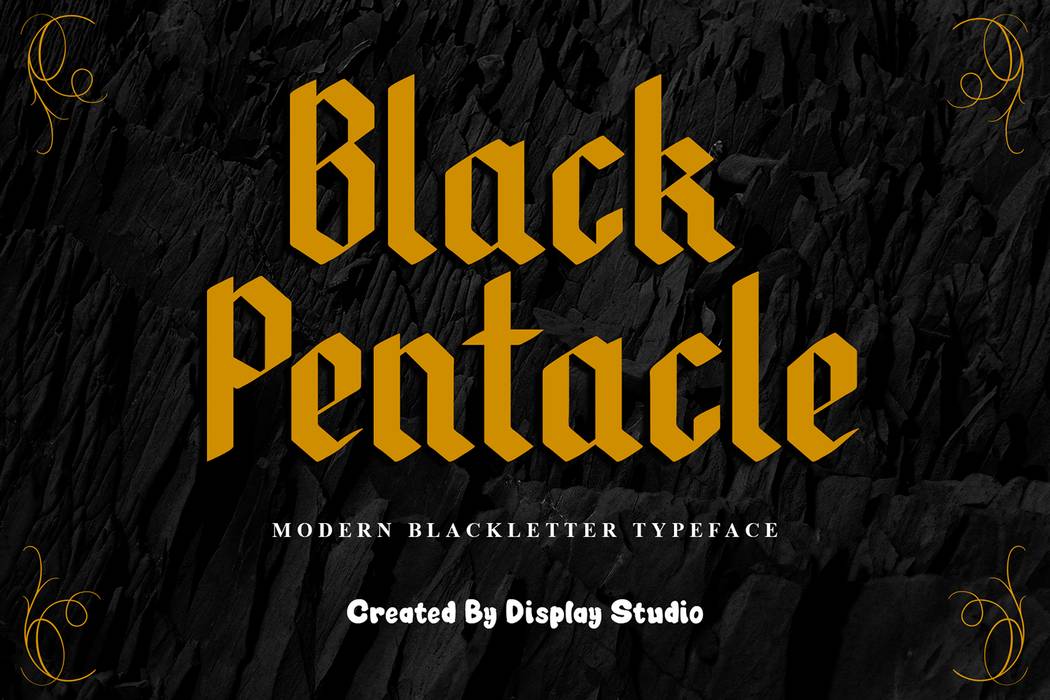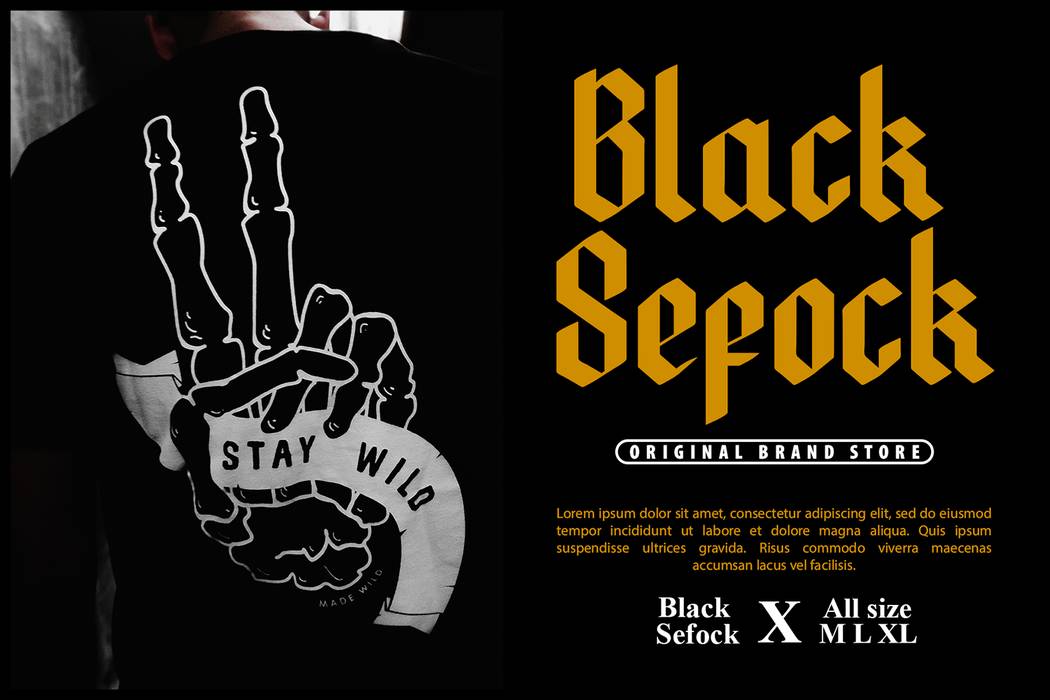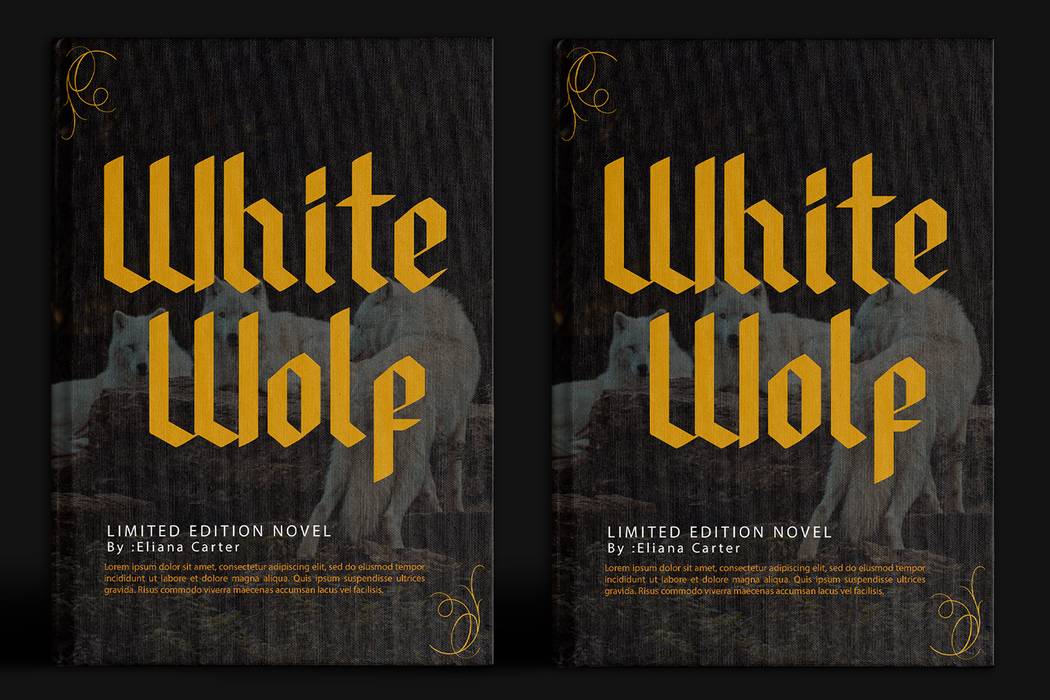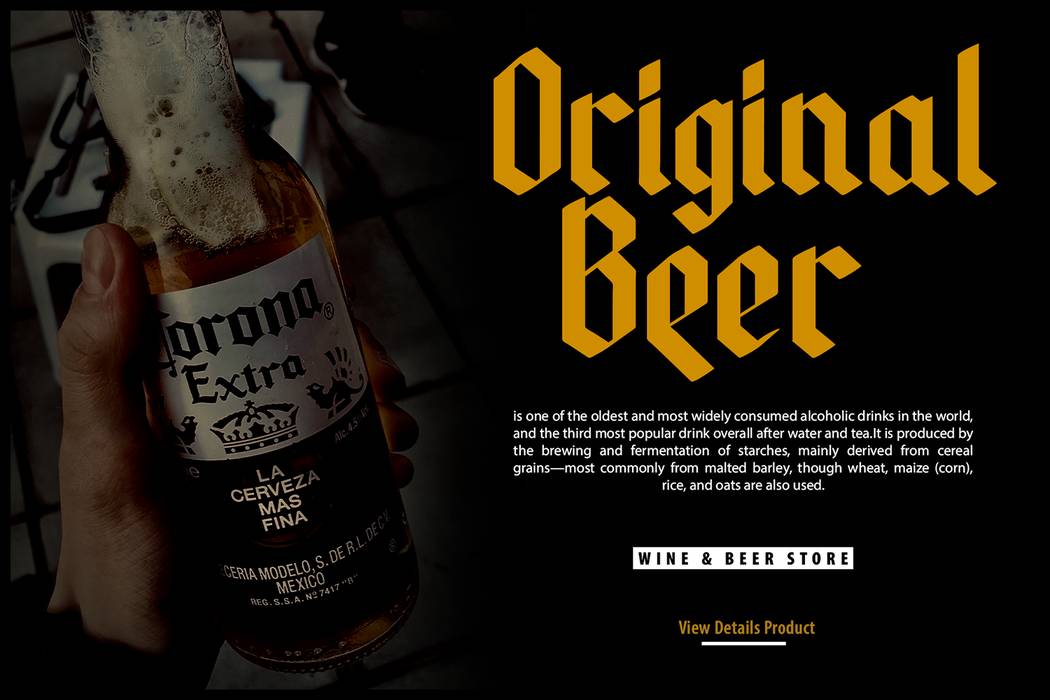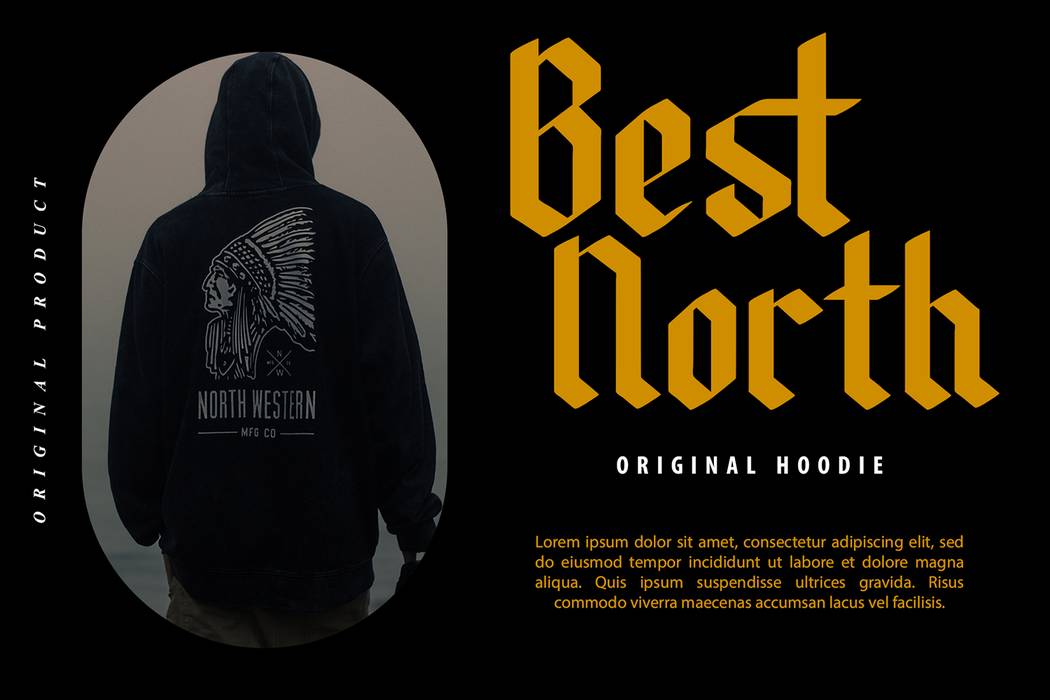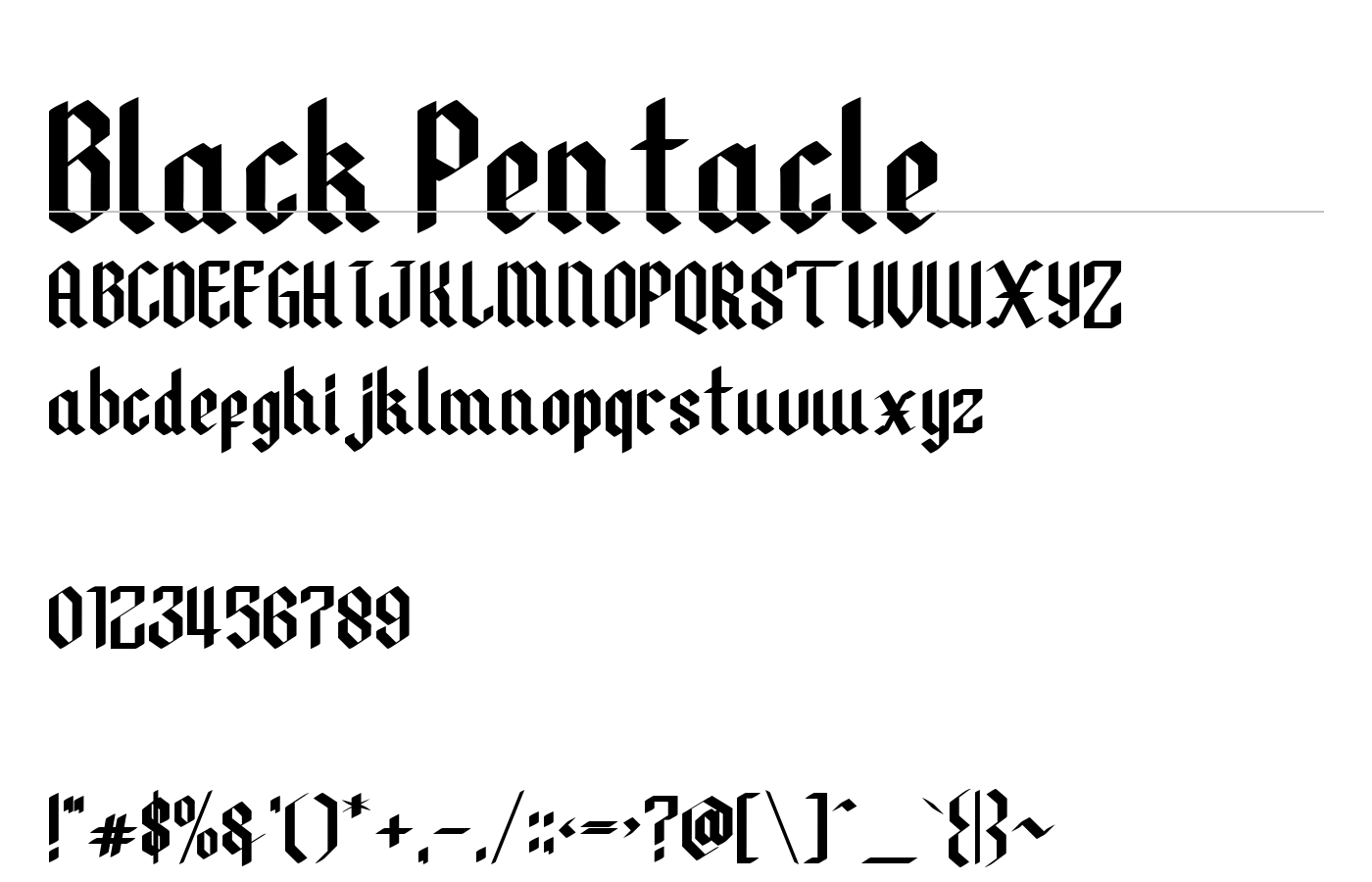
Black Pentacle is a bold blackletter serif font with a sharp, angular design that evokes a gothic and medieval vibe. Its condensed letterforms and strong contrasts between thick and thin strokes create a striking, authoritative look that works well in headlines, branding, and designs seeking a mysterious or historic mood. This font is ideal for projects that want to convey intensity, tradition, or a dark, vintage aesthetic.
Black Pentacle Font
About Black Pentacle Font
| Font family | Black Pentacle Font |